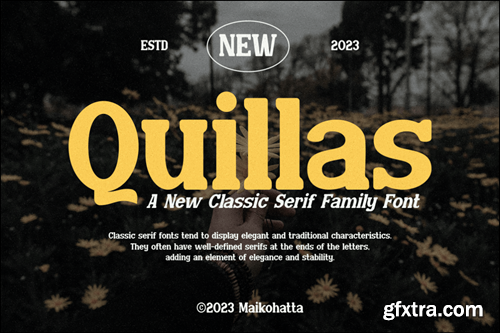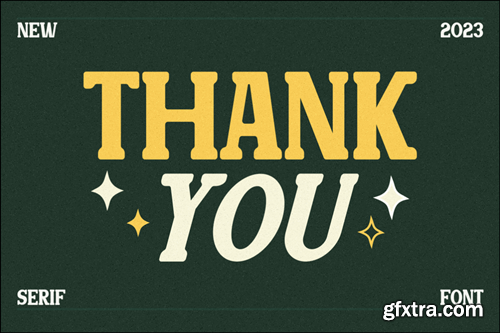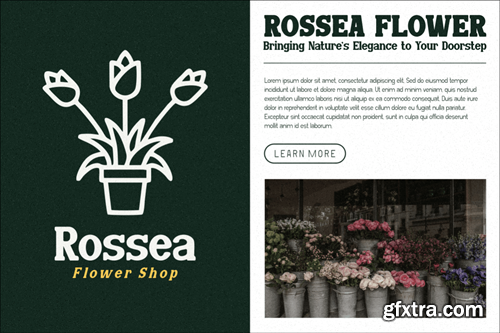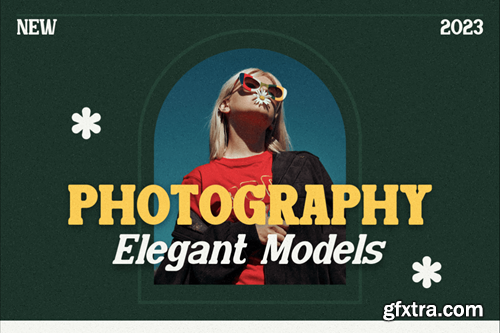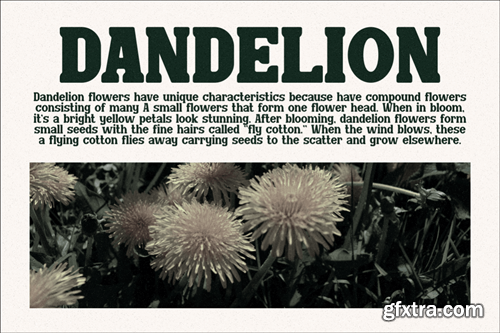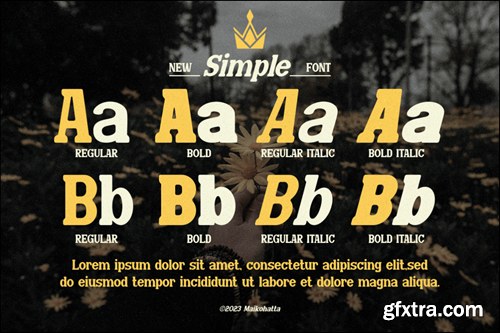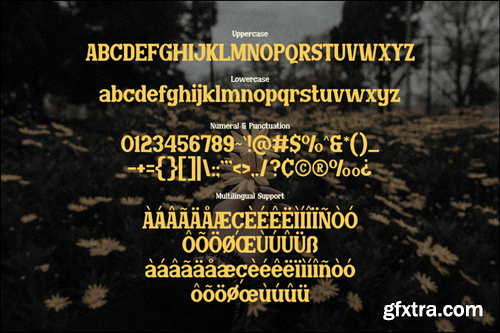
Quillas - 经典衬线字体家族 Font VAWCEXS
Quillas - Classic Serif Family Font
Introducing our new product Quillas Classic Serif Family Font This font has a series of small or decorative projections called serifs at the ends of its characters. Serifs provide a more formal, classic, and easy-to-read appearance to printed text. Serif fonts are often used in formal documents, books, and print publications because of their good legibility at small text sizes. available Style Font